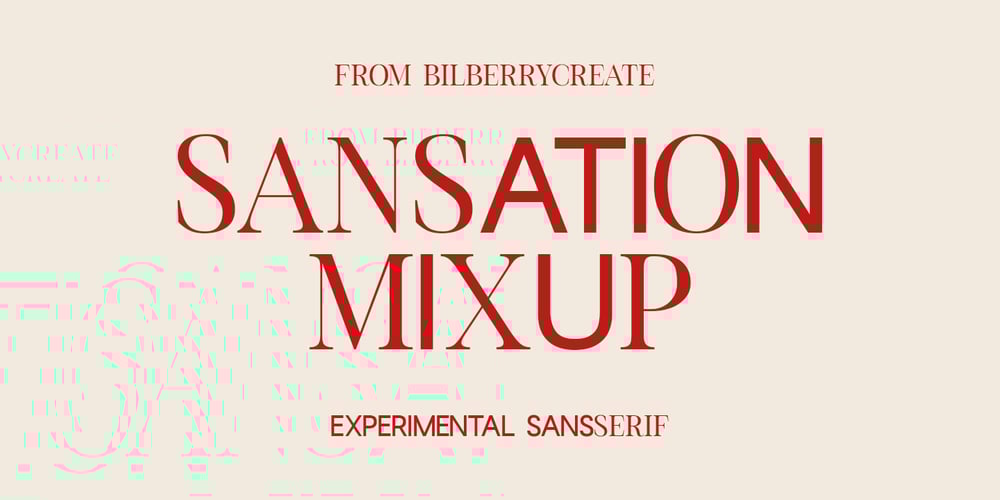
Sansation mixup Font Family was designed by Daria Cherniackova and published by Bilberry Create. Sansation mixup contains 1 styles and family package options. Sensation Mixup Experimental font!This is a perfect font for any project. Be sure to click on the image to see all elements.This pack can be used to create anything as you wish, logos invitation cards, make scrapbooking, wedding cards, birthday cards, home decor, packaging holiday gifts, party decorations, print on fabrics and so much more.What’s in the package:Sensation Mixup Experimental fontMultilingual Characters: AÁĂÂÄÀĀĄÅÃÆBCĆČÇĊDÐĎĐEÉĚÊËĖÈĒĘẼFGĞĢĠḠHĦIIJÍÎÏİÌĪĮĨJKĶLĹĽĻŁMNŃŇŅÑ OÓÔÖÒŐŌØÕŒPÞQRŔŘŖSŚŠŞȘẞTŤŢȚUÚÛÜÙŰŪŲŮŨVWẂŴẄẀXYÝŶŸỲỸZŹŽŻMY FRIENDS I HAVE INSTAGRAM https://www.instagram.com/Bilberry_create/